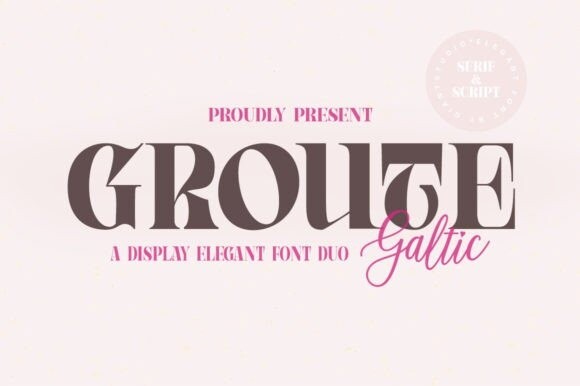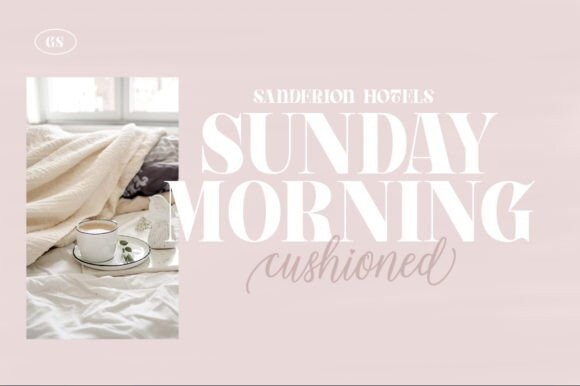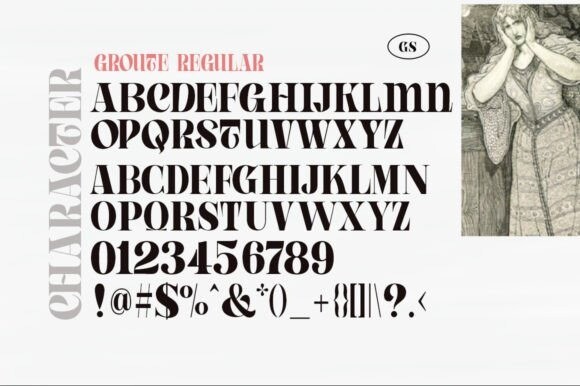
Groute Font Duo
Groute Font Elegant serif specially designed uppercase letters in creative moods and perfect shapes, inspired by the bold, natural look of serifs that are so beautiful for today’s fashion. bold, balanced, and varied, born for luxury and beauty. including uppercase letters, numbers, and various punctuation marks
Groute also comes in a script version so it is very suitable for invitation designs, logos & branding, photography, advertising, watermarks, social media posts, product packaging, product designs, labels, wedding designs, stationery, special events, or whatever is needed to create a theme.